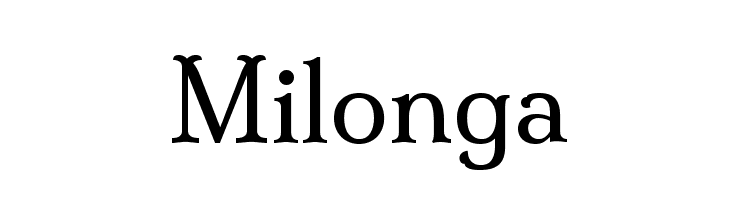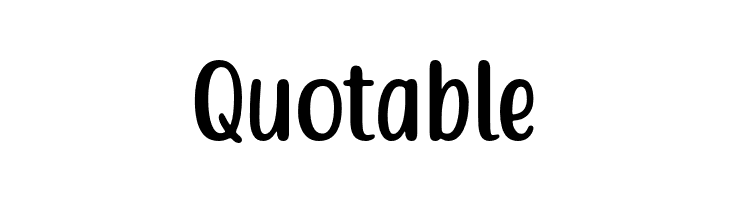
Bienvenue dans Polices Populaires — là où se rencontrent popularité et qualité. Voici les polices les plus téléchargées et utilisées cette année. Pour des choix sûrs (logos, web, social), commencez ici.
Chaque police phare se distingue par équilibre, lisibilité et polyvalence. Vous trouverez des sans‑serifs modernes, des scripts élégantes, des serifs vintage et des displays minimalistes.
A futuristic, pixelated font with a bold, geometric design.
A modern, geometric sans-serif font with clean lines and balanced proportions.
A playful, casual handwritten font with dynamic, irregular strokes.
A dynamic, hand-drawn font with a rough, edgy style.
An outline font with bold, expansive characters and an elegant, artistic flair.
A bold, modern sans-serif font with excellent legibility and balance.
A bold, italicized font with a futuristic and dynamic design.
Hand-drawn, food-themed cartoon illustrations replace standard glyphs.
An ornate and decorative font with intricate swirling patterns.
A flowing, cursive font with elegant connections and moderate stroke contrast.
A bold, expressive brush-style font with dynamic strokes.
A bold, modern font with a circuit-inspired design.
A bold, distressed font with a rugged, impactful style.
A whimsical and decorative font with artistic curves and flourishes.
A bold, geometric font with a futuristic and mechanical design.
A playful, bold font with thick, rounded characters perfect for creative designs.
A handcrafted serif font with a modern twist, featuring elongated and narrow letterforms.
A rugged, distressed typewriter-style font with a vintage, grunge aesthetic.
A playful, comic-inspired font with bold, outlined characters and a slanted orientation.
A bold, geometric font with a futuristic and modern design.
A playful, hand-drawn font with rounded, uneven strokes and a whimsical style.
A futuristic, minimalist font with geometric shapes and consistent stroke width.
A bold, rounded font with a slight italic slant, offering a dynamic and modern look.
A rugged, distressed font with a hand-drawn appearance.